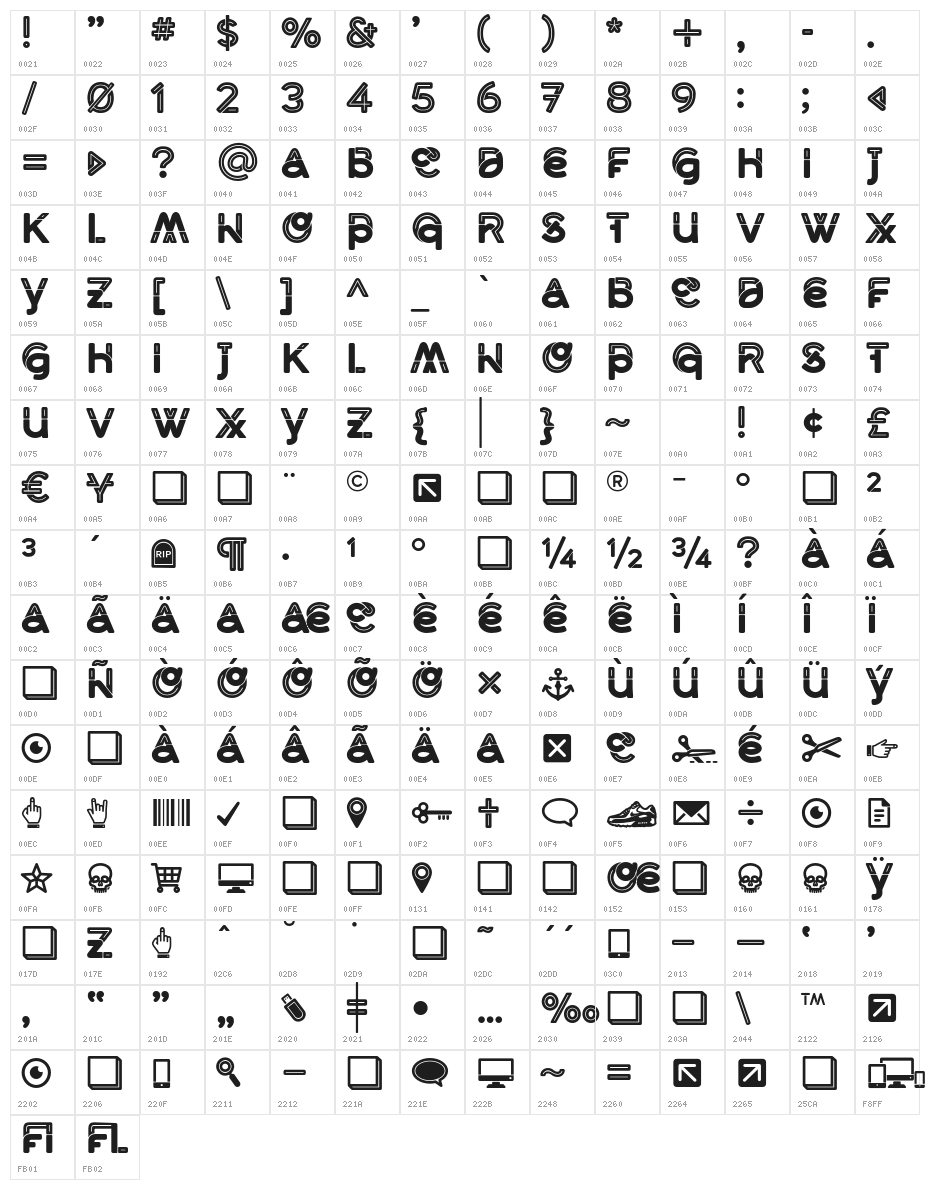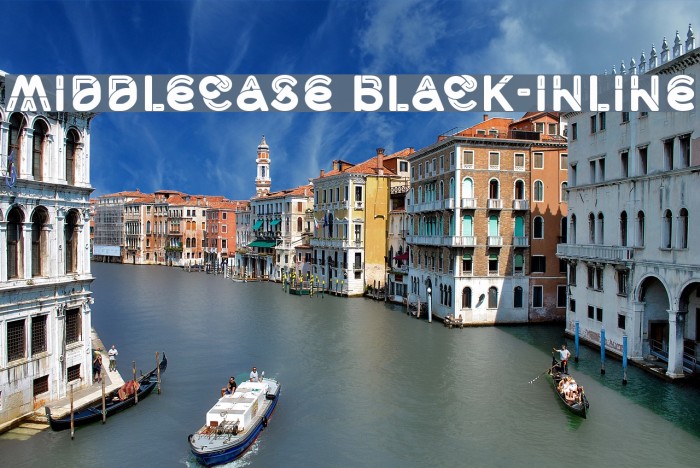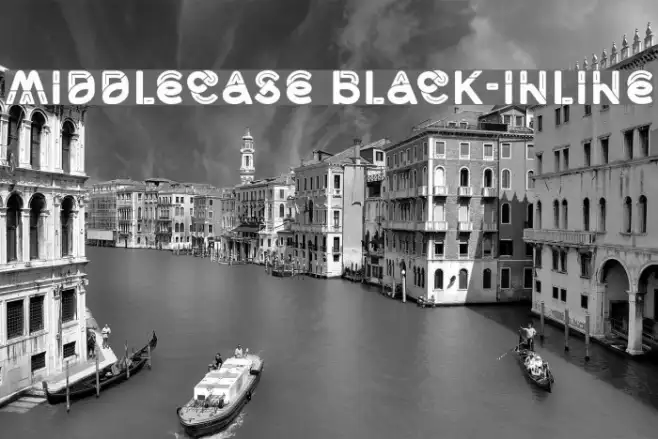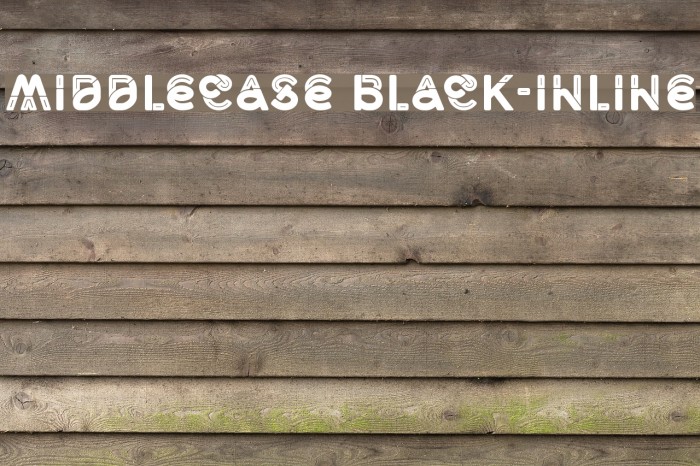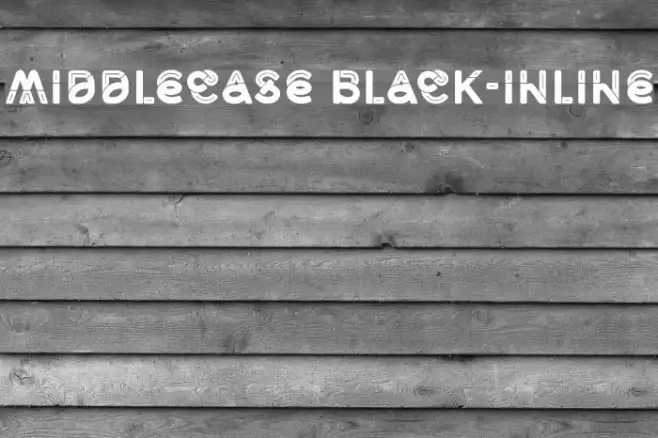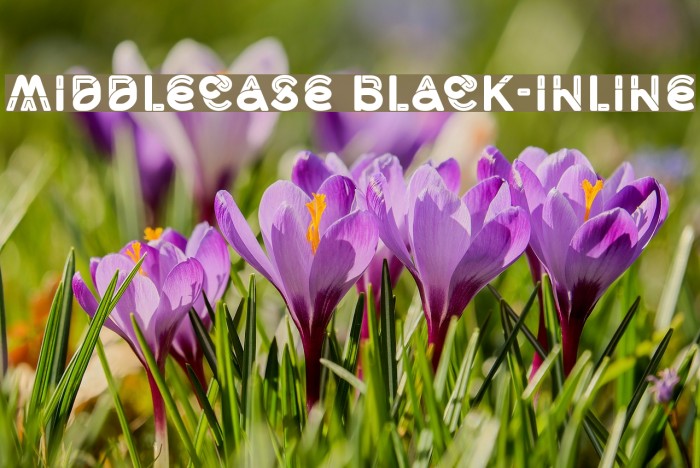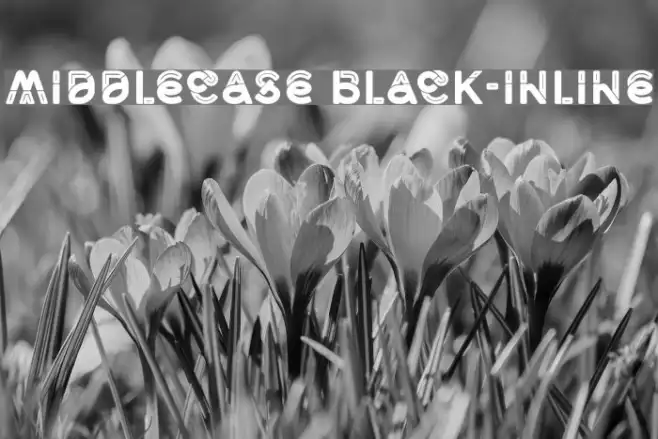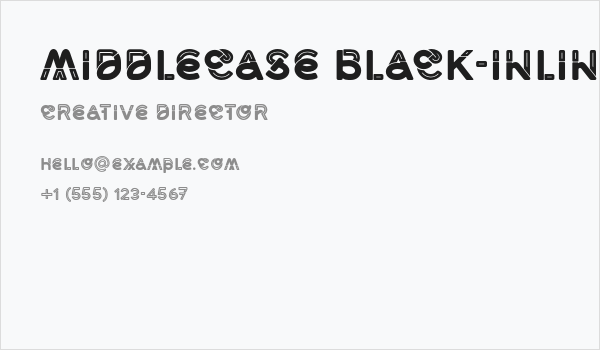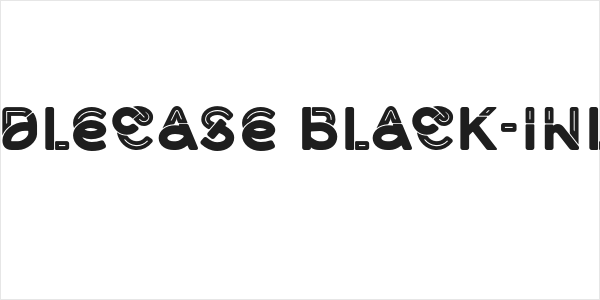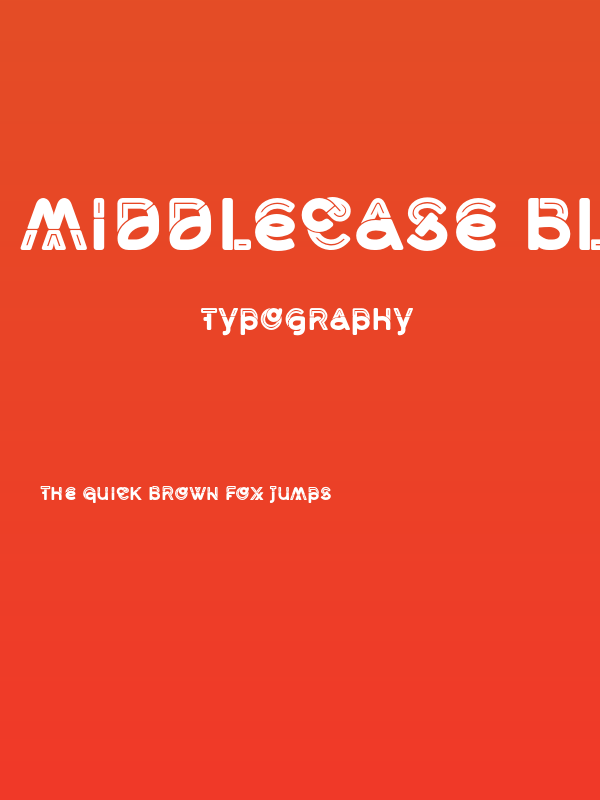
Middlecase Black-Inline Font
Middlecase Black-Inline Description
This font features a bold, inline style with a modern and decorative flair. The characters are designed with thick strokes and an inner line that adds depth and dimension. The uppercase and lowercase letters maintain a consistent weight, creating a cohesive look. The numerals and special characters are crafted with the same attention to detail, ensuring uniformity across the font. The overall design is eye-catching and suitable for projects that require a strong visual impact. The inline detail adds a unique touch, making it ideal for creative and artistic applications.